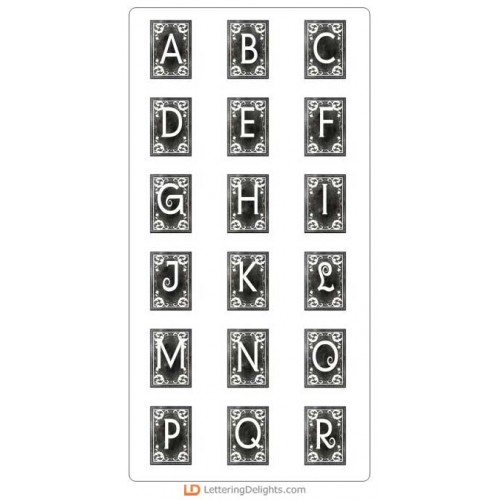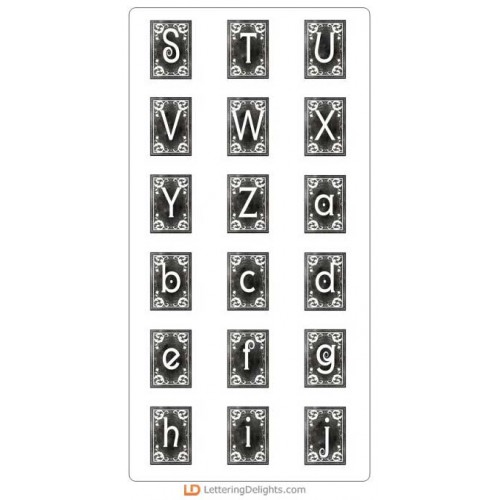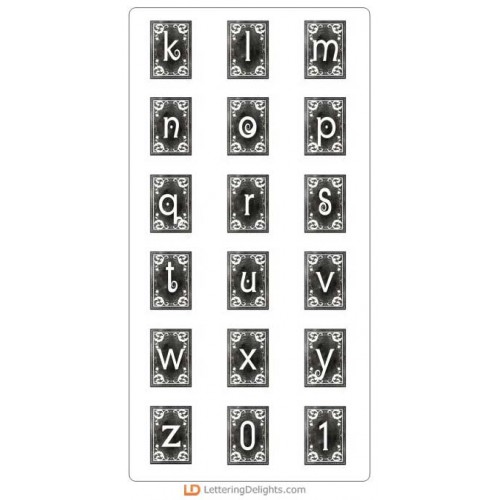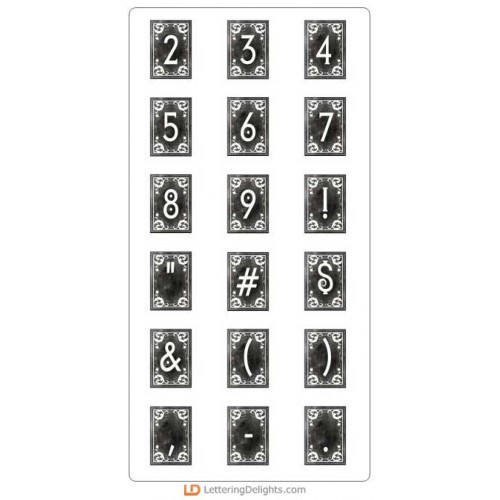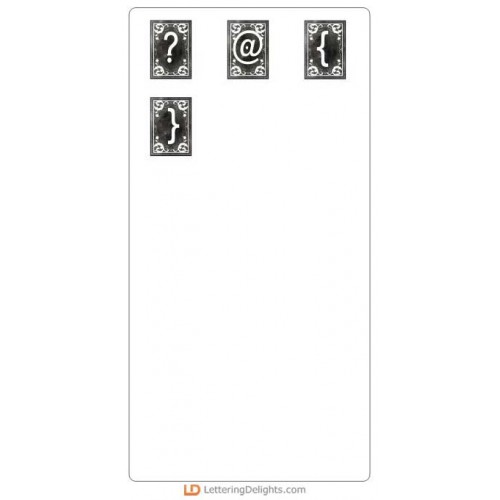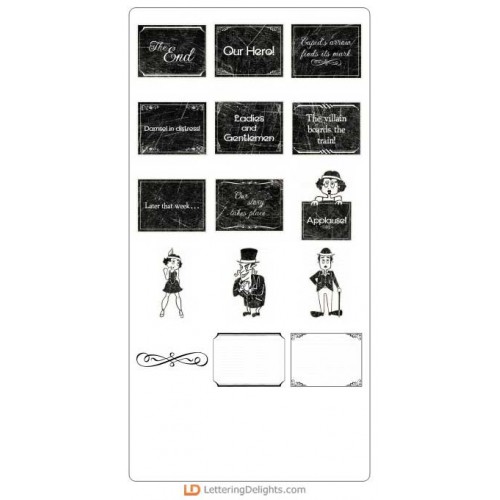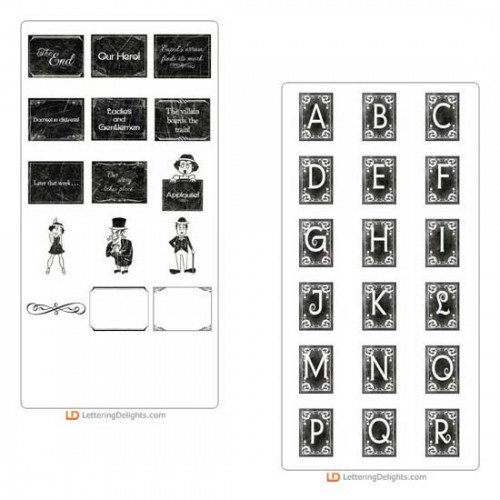
Two for Silent Movies Two for Tuesday Bundle
Ever feel like you're at a loss for words? Well we all know that a picture's worth a thousand words so no problem, right? Express yourself with a fun take on retro images from days gone by with our Silent Movie Graphics and Alphabet. Plus, today you can snag them at one low price in our Two for Silent Movies Two for Tuesday bundle!